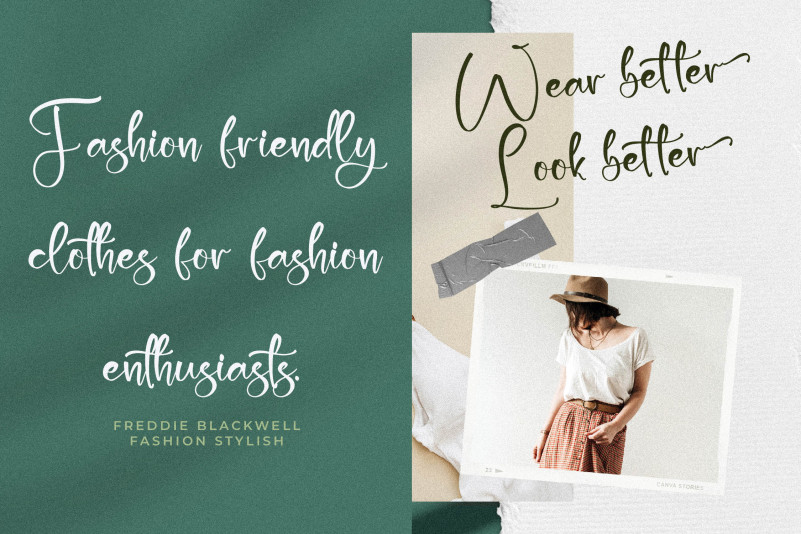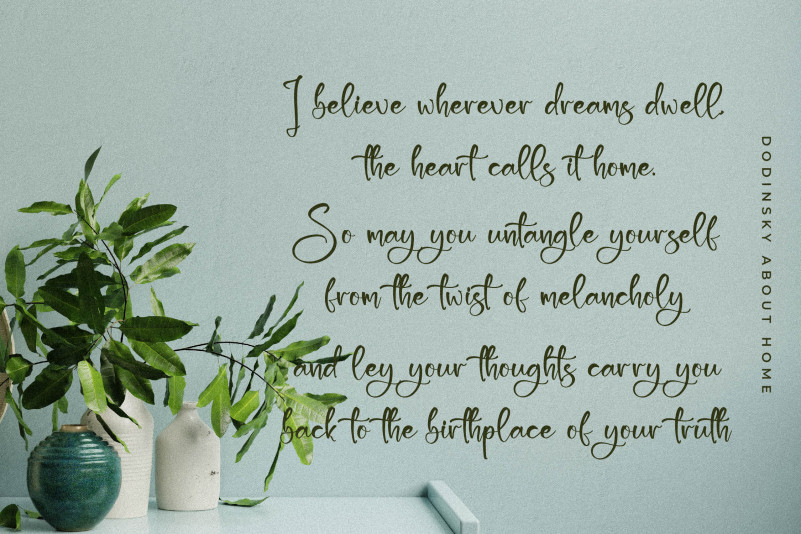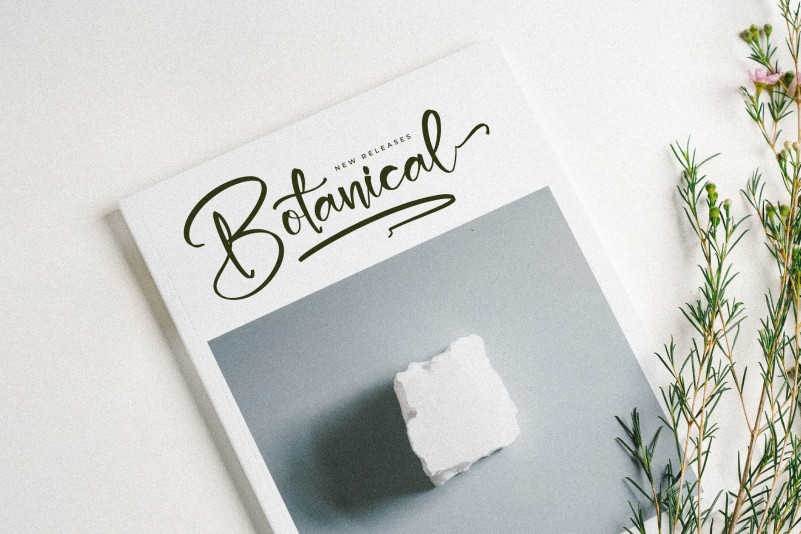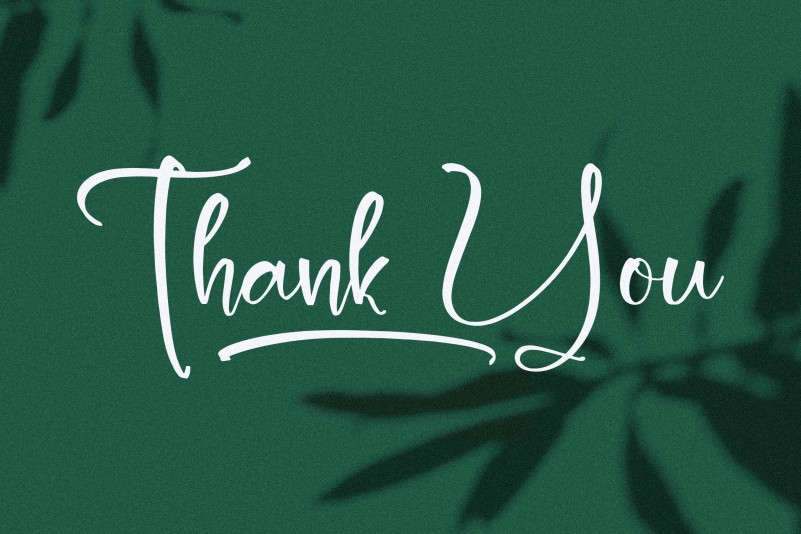
Herttlay Elizabeth Font
Herttlay Elizabeth Script Font is a Beauty Signature Script Font, suitable for any projects such as: logos, branding projects, homeware designs, product packaging, mugs, quotes, posters, shopping bags, t-shirts, book covers, name card, invitation cards, greeting cards, label, photography, watermark, special events, and all your other lovely projects that need a beautiful script taste.